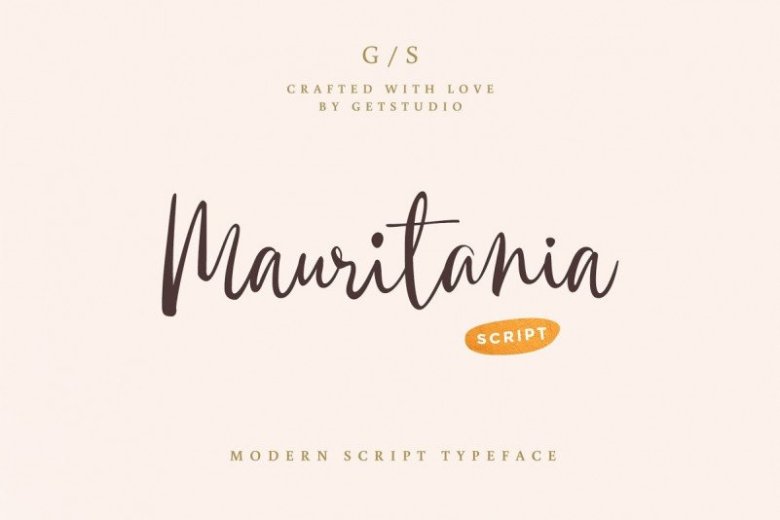
Mauritania Handwritten Font
Mauritania Handwritten Font is an incredibly distinct, delicate and timeless handwritten font. To create real hand lettered effect. It’s a script font from the designer Get Studio. Mauritania Handwritten Font hand-made font is well crafted with a dancing baseline that makes this font perfect for delivering an extremely fearless message in your design without losing the natural impression.
Mauritania Script is very suitable for various types of design needs such as branding materials, t-shirt, food-packaging, business cards, logos, posters, and more.